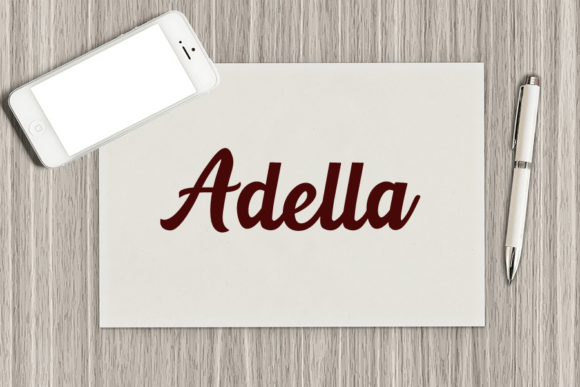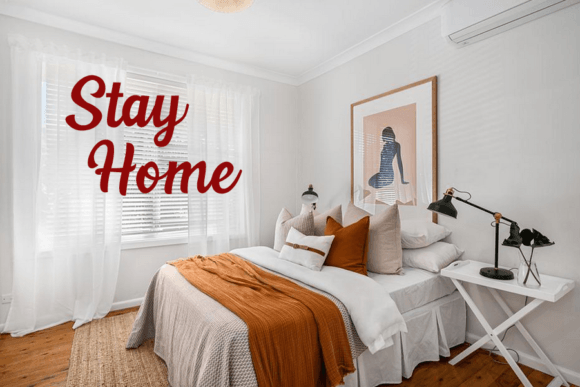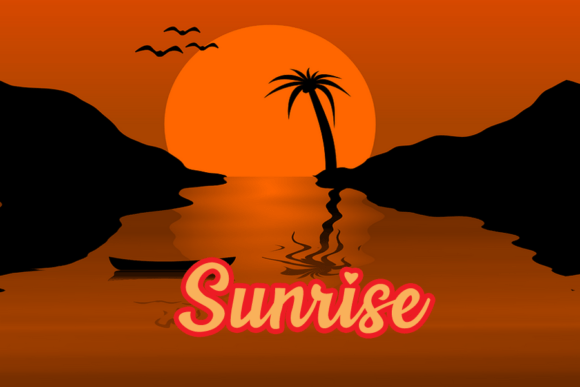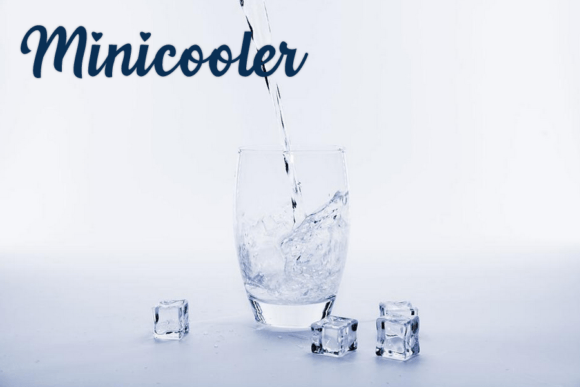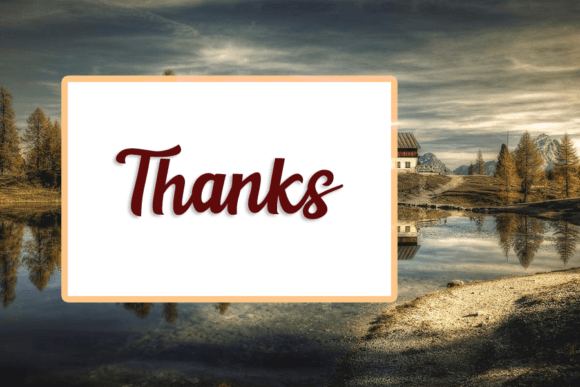
Bellany Font: A Timeless Handwritten Font for Stunning Designs
In the world of typography, few fonts manage to capture the essence of elegance and charm as effortlessly as the Bellany Font. This lovely and timeless handwritten font has been making waves in the design community, and for good reason. With its unique and beautiful touch, Bellany is the perfect choice for creating eye-catching logos, branding materials, and quotes that leave a lasting impression.
The Beauty of Bellany Font
What sets Bellany apart from other fonts is its distinctive handwritten style, which exudes warmth and sophistication. Every letter in the Bellany Font has been carefully crafted to possess a unique character, making it a versatile and engaging choice for designers and crafters. Whether you’re working on a logo, a branding project, or a quote, Bellany’s beautiful touch will undoubtedly make your design come alive.
When it comes to creating a memorable brand identity, the font you choose plays a crucial role. Bellany Font, with its elegant and timeless appeal, is an excellent choice for logos and branding materials. Its distinctive style ensures that your brand stands out from the competition, conveying a sense of sophistication and class that resonates with your target audience.
Adding Personality to Quotes and Typography
Bellany Font is not just limited to logos and branding; it’s also perfect for adding a personal touch to quotes and typography projects. The font’s unique and beautiful style brings a level of emotional connection and intimacy, making it ideal for projects that require a more human touch. Whether you’re creating inspirational quotes, posters, or social media graphics, Bellany Font is sure to add a touch of elegance and charm.
Why Designers and Crafters Love Bellany Font
Designers and crafters worldwide have fallen in love with Bellany Font for several reasons:
- Versatility: Bellany Font can be used across a wide range of projects, from logos and branding to quotes and typography.
- Elegance: The font’s timeless and elegant style ensures that your designs always look sophisticated and classy.
- Uniqueness: Each letter in the Bellany Font has a unique touch, making your designs stand out from the crowd.
- Easy to Read: Despite its elegant style, Bellany Font remains easy to read, making it perfect for both digital and print projects.
Tips for Using Bellany Font Effectively
To make the most of Bellany Font, consider the following tips:
- Pair with Complementary Fonts: Combine Bellany Font with simpler fonts to create visual interest and hierarchy in your designs.
- Experiment with Colors: Don’t be afraid to experiment with different colors to find the perfect match for your Bellany Font.
- Use it Large: Bellany Font looks stunning when used in large sizes, making it perfect for headlines and titles.
- Keep it Simple: While Bellany Font is elegant and decorative, it’s best to keep your overall design simple to let the font shine.
Bellany Font is a beautiful and timeless handwritten font that offers a unique and elegant solution for designers and crafters looking to add a touch of sophistication to their projects. With its versatile style, beautiful touch, and ease of use, Bellany is sure to become a favorite in your font collection. Whether you’re working on logos, branding, quotes, or typography, Bellany Font is the perfect choice for creating stunning designs that leave a lasting impression.